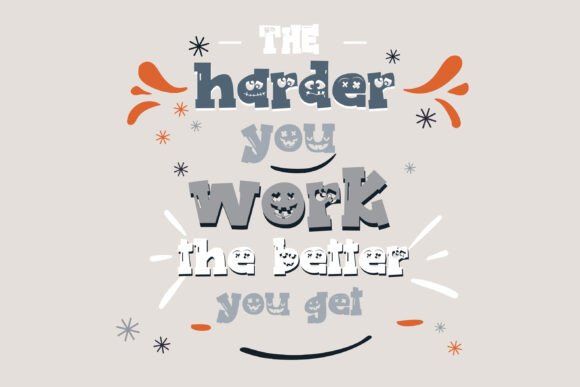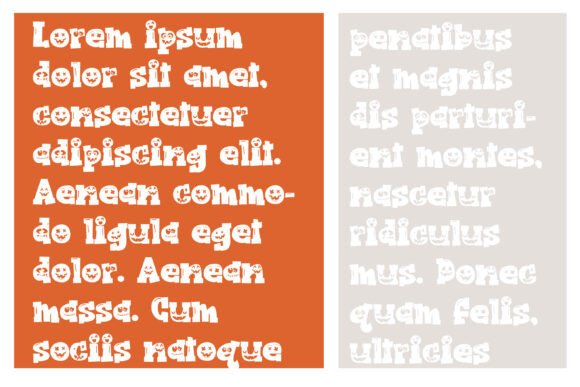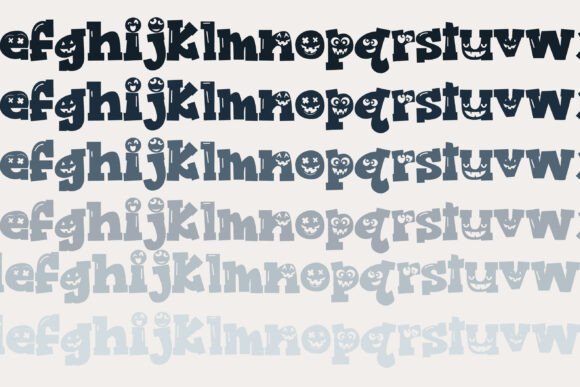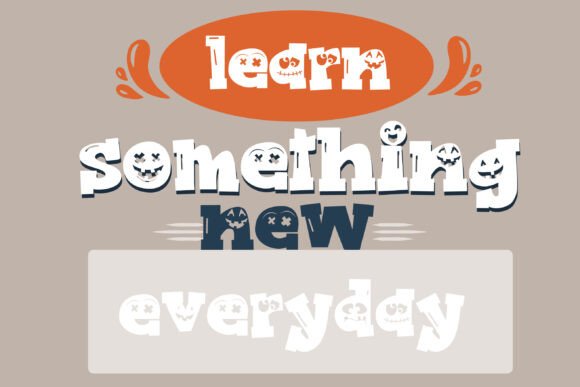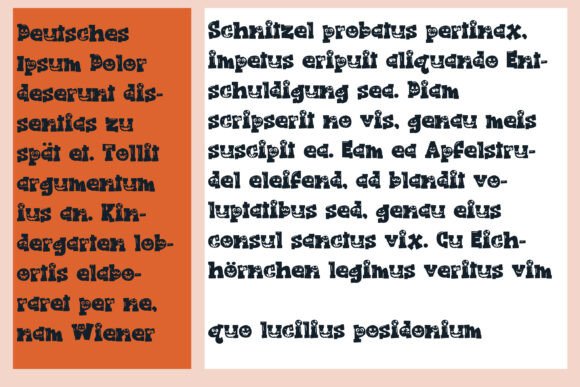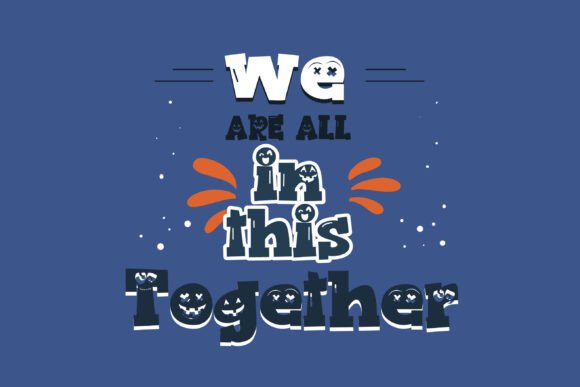
Goblin Grins Font: A Spooky yet Charming Hand-Crafted Serif Font
Are you looking for a font that adds a touch of whimsy and playfulness to your designs? Look no further than the Goblin Grins Font, a hand-crafted serif font that features jack-o-lantern faces throughout. This unique font is perfect for designers and crafters who want to add a bit of spooky charm to their projects.
A hand-crafted font is a font that is designed to look like it was written by hand. It is often used for invitations, greeting cards, and other items. Handwritten fonts can be either formal or informal, and they can be used for a variety of purposes. They are perfect for adding a personal touch to your designs and making them stand out.
Features of Goblin Grins Font
The Goblin Grins Font is a one-of-a-kind font that features hand-crafted serif letters with jack-o-lantern faces throughout. The font is designed to look like it was written by hand, with each letter and symbol carefully crafted to give it a unique and playful feel. The font is perfect for a variety of projects, including:
- Halloween-themed designs, such as invitations, party decorations, and trick-or-treat bags
- Autumn-themed designs, such as harvest festival posters and Thanksgiving invitations
- Any project that requires a touch of whimsy and playfulness
Benefits of Using Hand-Crafted Fonts
Hand-crafted fonts like Goblin Grins Font offer a number of benefits for designers and crafters. Some of the benefits include:
- Unique and distinctive look: Hand-crafted fonts have a unique and distinctive look that sets them apart from other fonts. They can add a touch of personality and whimsy to your designs.
- Flexibility: Hand-crafted fonts can be used for a variety of purposes, from formal invitations to informal party decorations.
- Emotional connection: Hand-crafted fonts can create an emotional connection with your audience. They can make your designs feel more personal and relatable.
Tips for Using Goblin Grins Font
Here are a few tips for using Goblin Grins Font in your designs:
- Use it sparingly: While Goblin Grins Font is a fun and playful font, it can be overwhelming if used too much. Use it sparingly to add a touch of whimsy to your designs.
- Pair it with other fonts: Goblin Grins Font pairs well with other fonts, such as sans-serif fonts and script fonts. Experiment with different font combinations to find the one that works best for your design.
- Experiment with colors: Goblin Grins Font looks great in a variety of colors, from bright and bold to muted and pastel. Experiment with different colors to find the one that works best for your design.
Goblin Grins Font is a unique and charming hand-crafted serif font that features jack-o-lantern faces throughout. It is perfect for designers and crafters who want to add a touch of spooky charm to their projects. With its flexibility, emotional connection, and distinctive look, Goblin Grins Font is a great addition to any designer’s toolkit.
- What is Goblin Grins Font?
- Goblin Grins Font is a hand-crafted serif font that features jack-o-lantern faces throughout.
- What is a hand-crafted font?
- A hand-crafted font is a font that is designed to look like it was written by hand.
- What can I use Goblin Grins Font for?
- Goblin Grins Font is perfect for Halloween-themed designs, autumn-themed designs, and any project that requires a touch of whimsy and playfulness.